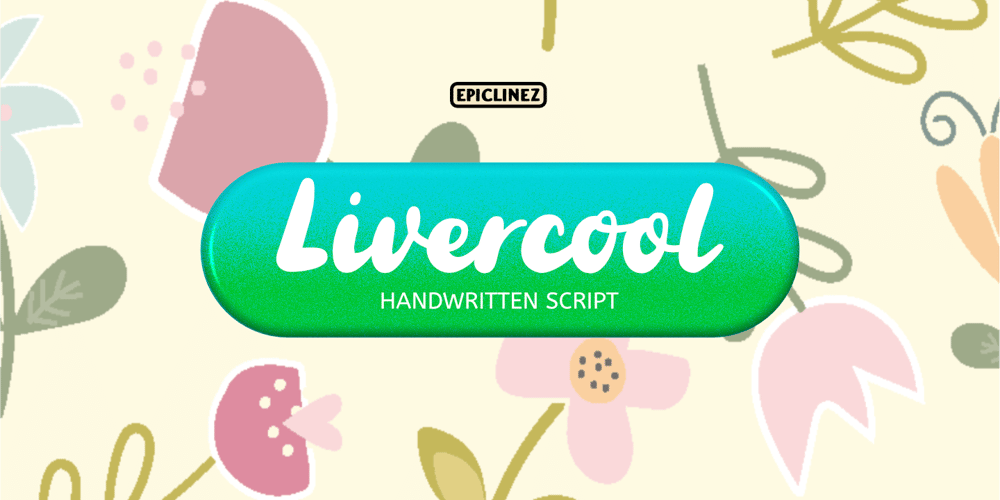
Livercool Font Family was designed by Aldy Sidik and published by Epiclinez. Livercool contains 1 styles and family package options. Livercool is a bold and playful handwritten script font. It is suitable for logo, branding, apparel, social media, and more.